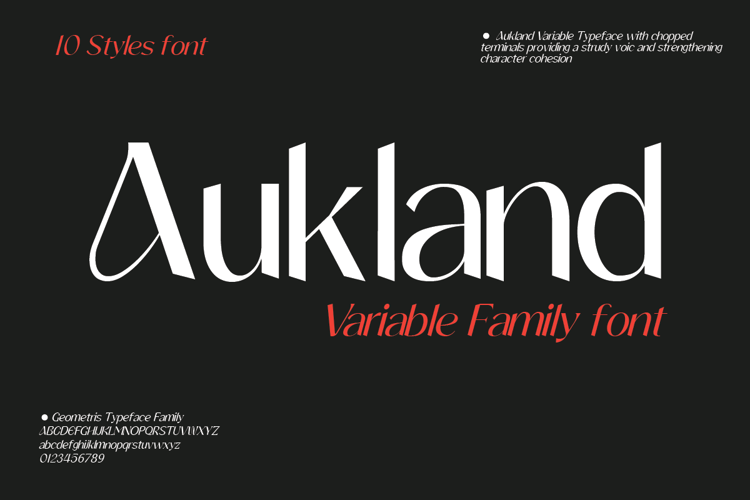
Auckland Variable Font
Auckland Variable Sans Serif Font - This font would be perfect for photography, watermarks, social media posts, advertisements, logos & branding, invitations, product design, labels, stationery, product packaging, special events, and other projects. This font is PUA encoded which means you can access all glyphs with ease!